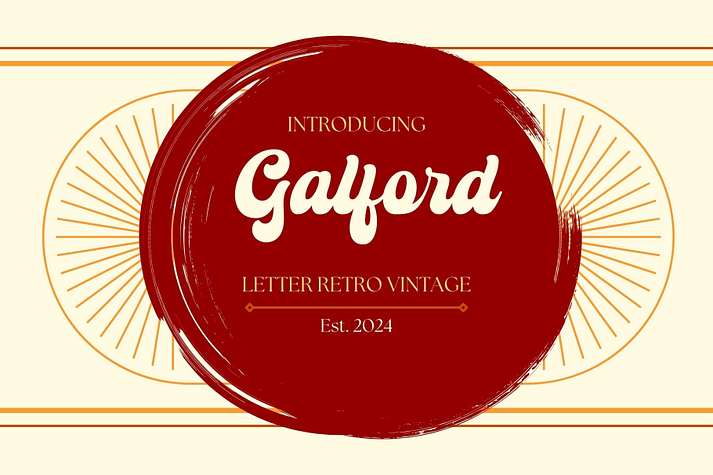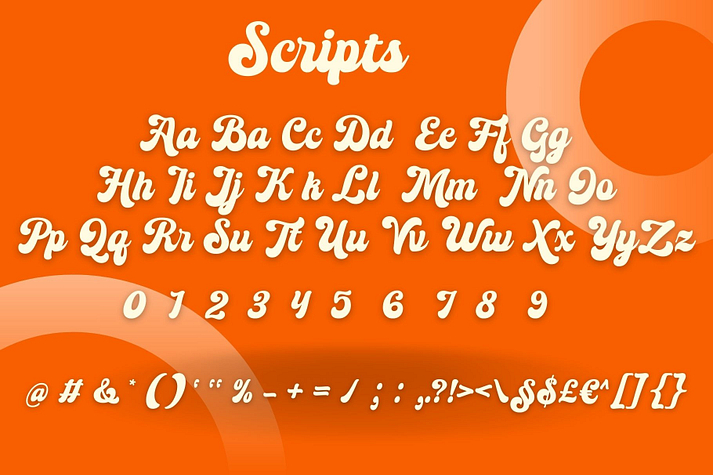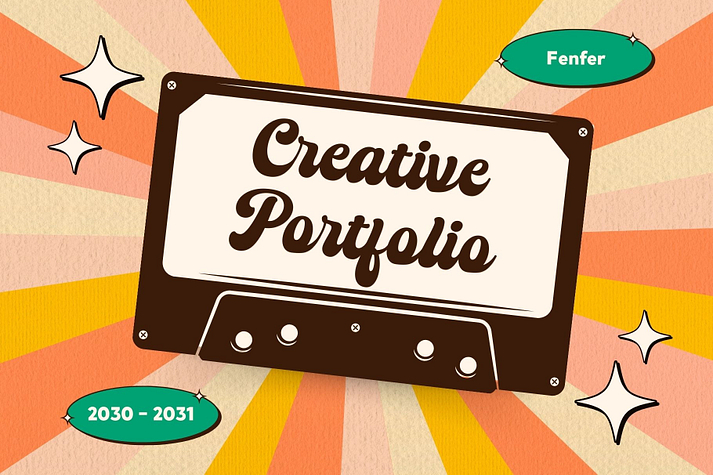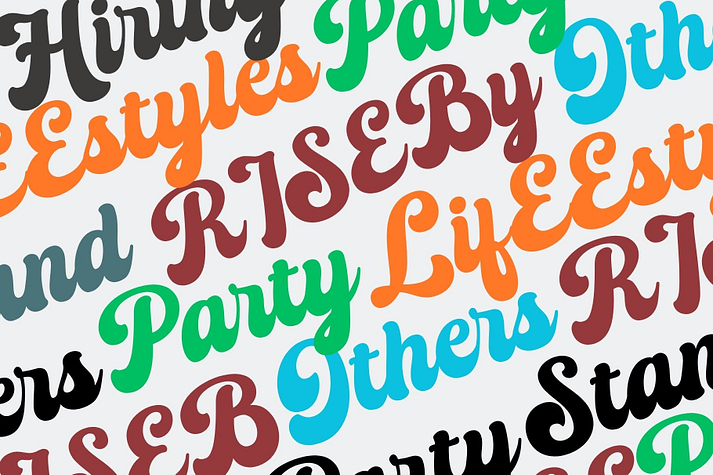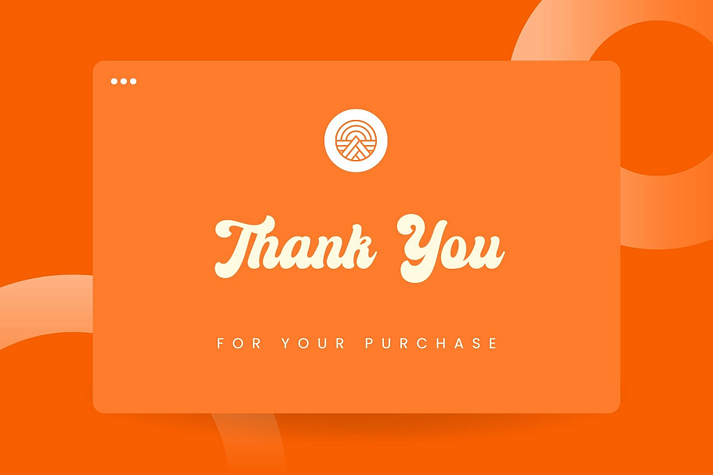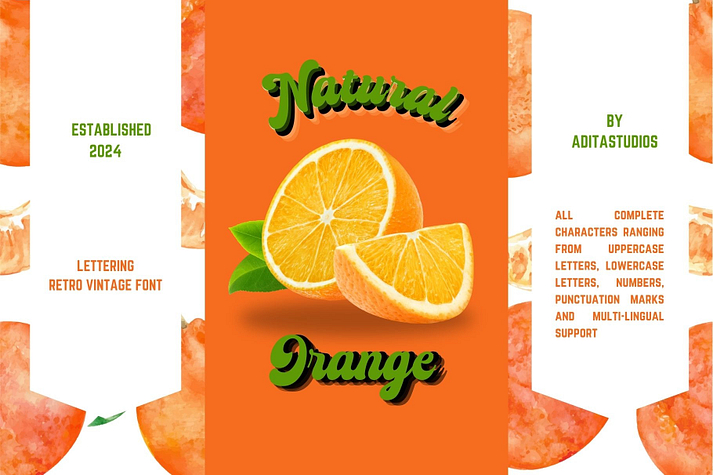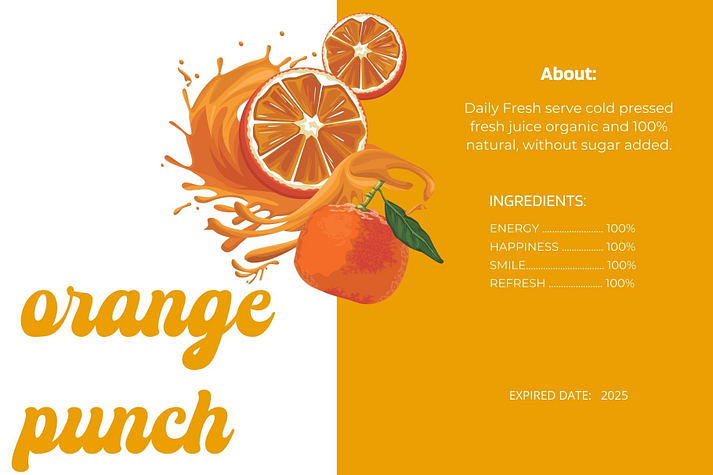
Galford
Galford is a font family published by Aditastudios.
Galford is a lettering retro vintage font. You will get alternate characters such as swash on some characters. Equipped with all complete characters ranging from uppercase letters, lowercase letters, numbers, punctuation marks and multi-lingual support, this font is ready to be used in any project. Very suitable for logotype, Stickers, Packaging design, Cricut Project, Headlines, Brand identity, T shirt or Apparel industry, Posters, Magazines, Books, YouTube, Instagram, Websites, Canva, Corjl or any of your creative design projects. Use this Galford font to add that special modern retro touch to any design idea you can think of!